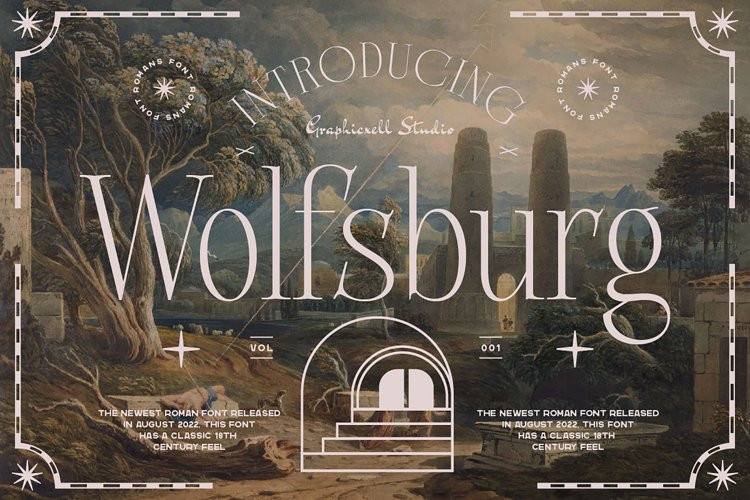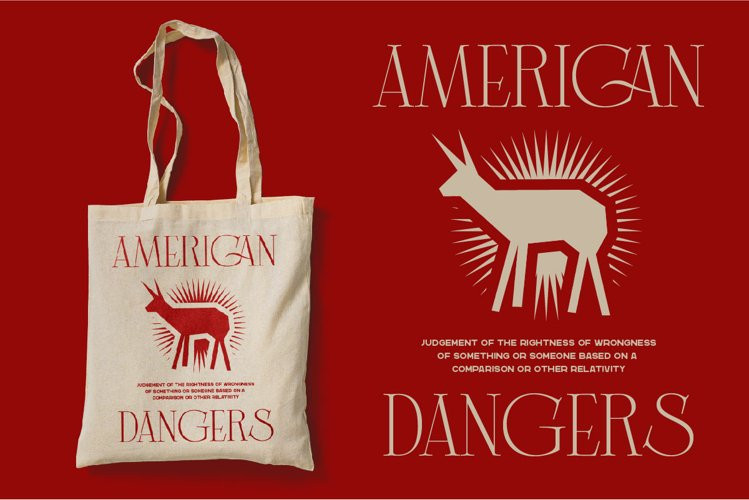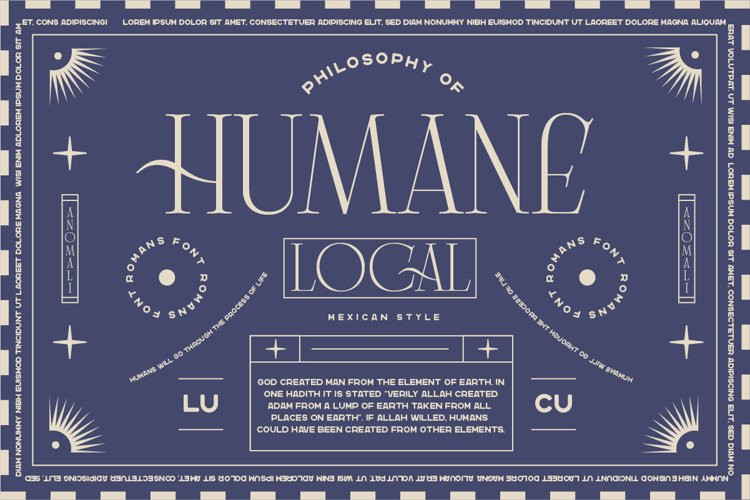
Wolfsburg – Romans Font
Wolfsburg - Romans FontWolfsburg Romans Font inspired by the famous minimalist logo perfect for the purposes of designing templates, brochures, videos, advertising branding, logos, invitation, layout design, elegant crafting, beautiful design, and more.